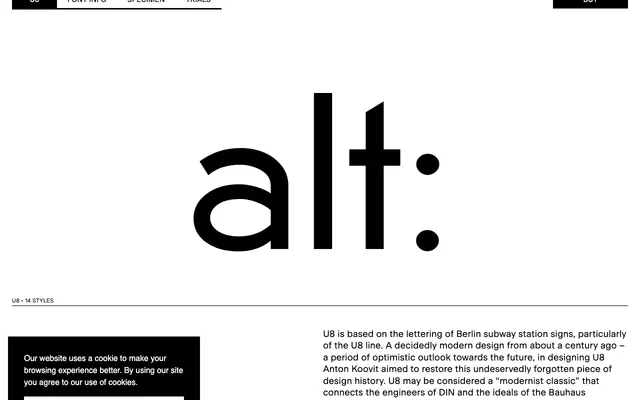
U8
A geometric sans drawn from the lettering of Berlin's U8 subway line signs, reviving an early twentieth-century modernist tradition that sits between the rigour of DIN and the ideals of the Bauhaus.
Anton Koovit based U8 on the station signage of the Berlin U-Bahn's U8 line, lettering that dates from roughly a century ago and connects the engineering clarity of DIN with Bauhaus geometric principles. The family spans fourteen styles across seven weights from Hairline to Black, each with a matching italic. It suits transport, editorial and identity work where a historically grounded geometric sans is needed without resorting to the more obvious mid-century revivals.
U8 draws directly from early twentieth-century Berlin U-Bahn station lettering, sharing geometric reduction with DIN and Bauhaus-influenced sans-serifs; its stripped, rectilinear forms place it firmly in the geometric sans tradition.